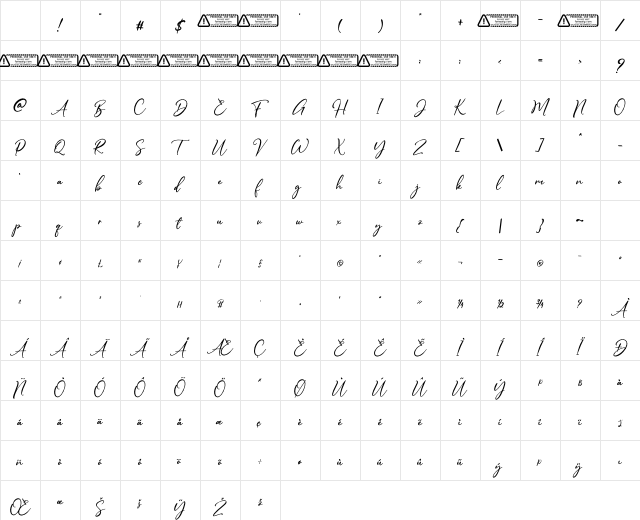
Complete Daviast Regular glyph index. Displaying only characters natively supported by Daviast Regular font.
Daviast is a composed and adaptable typeface that performs quietly and consistently across a wide range of design contexts.